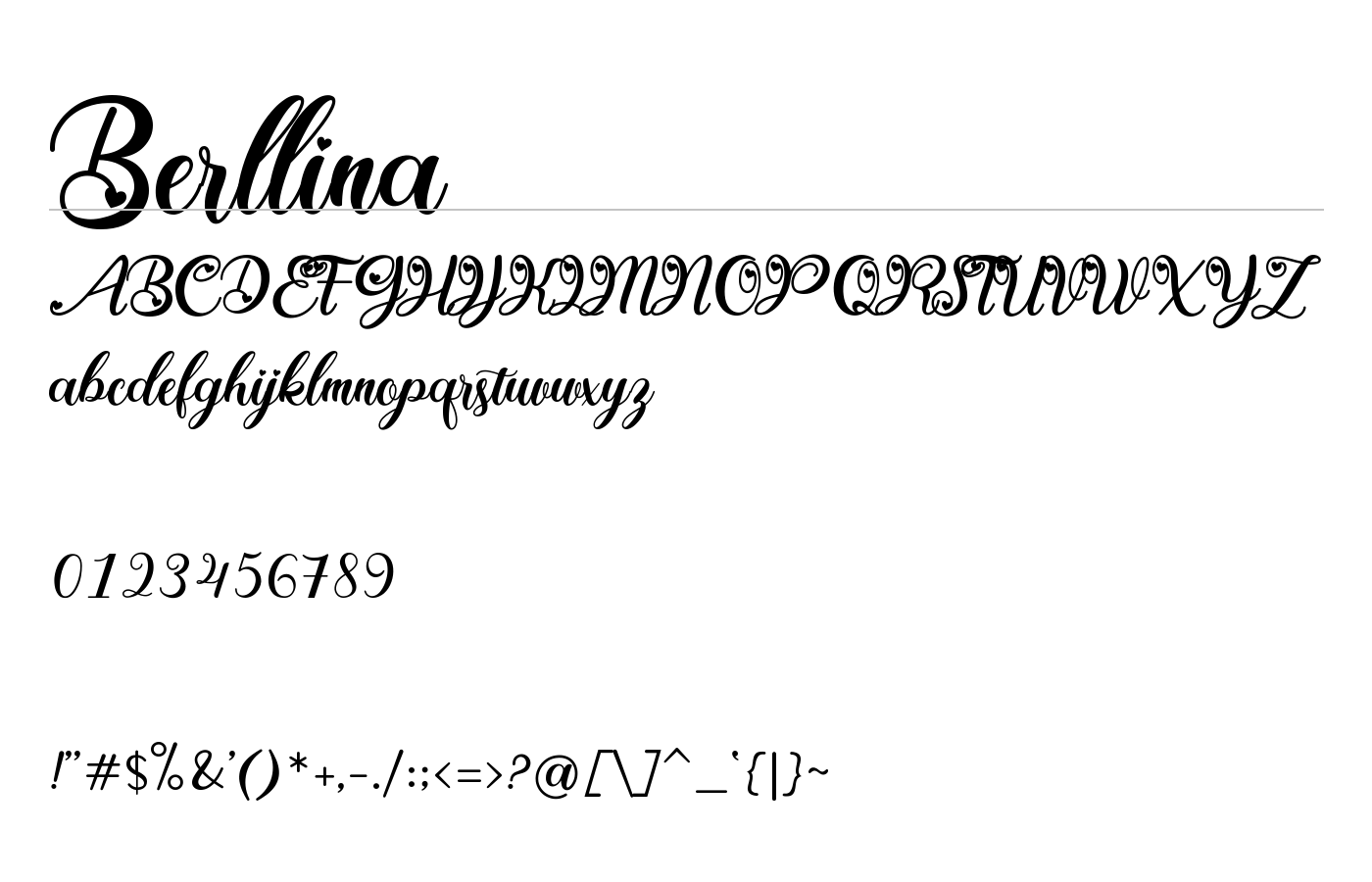
Berllina is a stylish script font with elegant, flowing strokes and playful heart-shaped details that add a charming, romantic touch. Its smooth curves and moderate contrast make it perfect for invitations, fashion branding, and feminine packaging, where a graceful and inviting feel is desired. This font shines best in headlines and decorative uses, giving a sophisticated yet warm personality to any design.
Berllina Font
About Berllina Font
| Font family | Berllina Font |
| Designer | Usman Al Baehaqi |